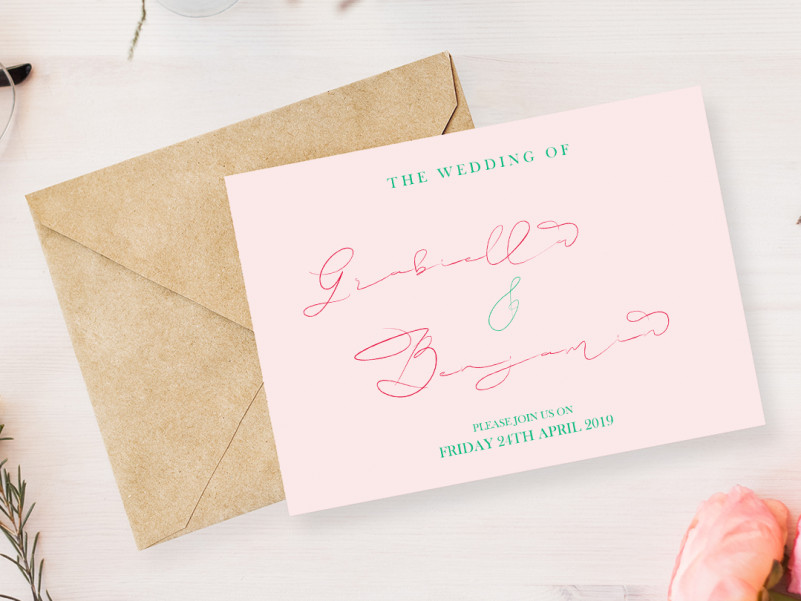
Efothyro Script Font
Efothyro Script Font is chic modern calligraphy font. Efothyro is an equally modern and chic script that will add a personal twist on any design idea!